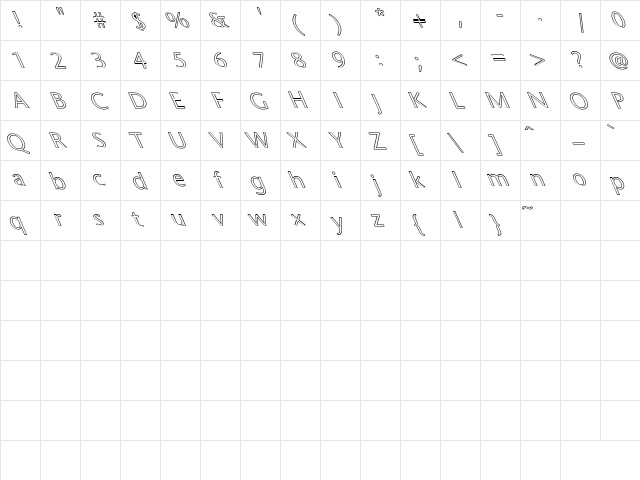
Sapir Sans Hollow Extreme Lefti Regular
Design Context for Sapir Sans Hollow Extreme Lefti Typeface
Sapir Sans Hollow Extreme Lefti takes a measured approach to typography — its balanced proportions and neutral character make it a reliable workhorse for both digital and print work.